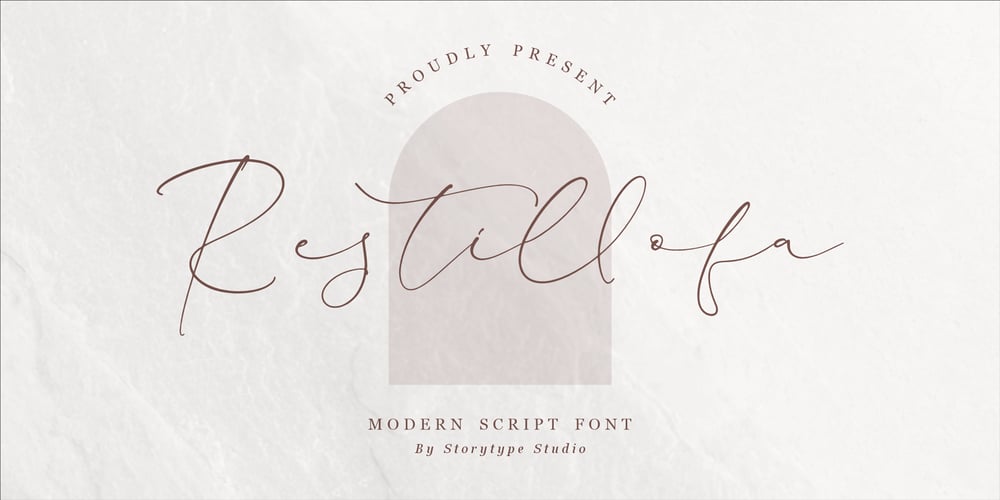
Restillofa Font Family was designed by Heru Utama Putra and published by Letterena Studios. Restillofa contains 2 styles and family package options. Restillofa is a graceful, modern signature script font. With its beautiful rhythm, this font will help you create gorgeous and classy compositions. Use it for branding projects, invitations, web graphics, cards, and many more!